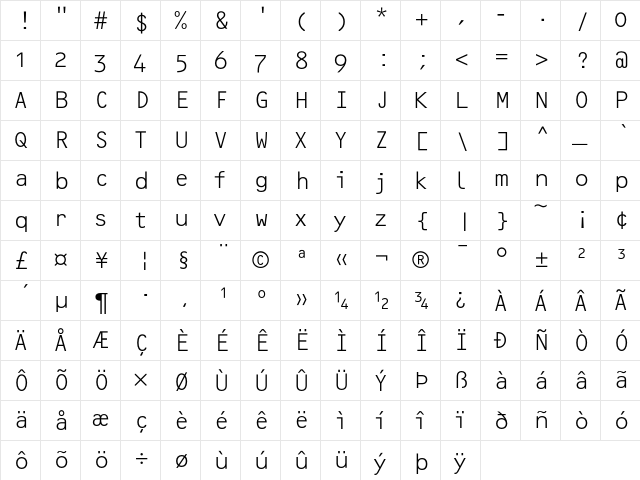
OCRF LightOSF
Design Context for OCRF Typeface
OCRF takes a measured approach to typography — its balanced proportions and neutral character make it a reliable workhorse for both digital and print work. The delicate stroke weight brings airiness and refinement to layouts.